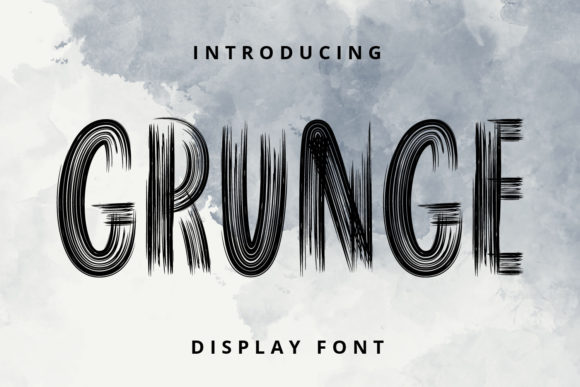
Grunge Font: The Ultimate Choice for Street Art and Urban Creations
Are you a designer or crafter looking for a font that embodies playfulness and authenticity? Look no further than Grunge Font! This fun, cool, and thick lettered display font is perfect for any street art design or urban creation. In this article, we’ll dive into the world of Grunge Font and explore its features, benefits, and uses.
What is Grunge Font?
Grunge Font is a display font that is characterized by its thick, bold letters and grungy texture. It’s a fun and playful font that is perfect for adding a touch of personality to your designs. The font is inspired by the grunge movement of the 1990s, which was known for its DIY ethos and anti-mainstream aesthetic.
Features of Grunge Font
Grunge Font has several features that make it a great choice for designers and crafters. Some of its key features include:
- Thick and bold letters: Grunge Font features thick and bold letters that are perfect for creating eye-catching designs.
- Grungy texture: The font has a grungy texture that gives it a rough and edgy look.
- Playful and authentic: Grunge Font embodies playfulness and authenticity, making it perfect for designs that require a touch of personality.
- Easy to read: Despite its grungy texture, Grunge Font is easy to read, even in large sizes.
Benefits of Using Grunge Font
There are several benefits to using Grunge Font in your designs. Some of the benefits include:
- Unique and eye-catching designs: Grunge Font allows you to create unique and eye-catching designs that stand out from the crowd.
- Perfect for street art and urban creations: The font is perfect for street art and urban creations, such as posters, flyers, and graffiti.
- Versatile: The font can be used for a variety of design projects, from logos and branding to posters and flyers.
Uses of Grunge Font
Grunge Font can be used for a variety of design projects, including:
- Street art and urban creations: The font is perfect for creating street art and urban creations, such as posters, flyers, and graffiti.
- Logos and branding: Grunge Font can be used to create unique and eye-catching logos and branding materials.
- Posters and flyers: The font is perfect for creating posters and flyers that require a bold and eye-catching design.
- Social media graphics: Grunge Font can be used to create social media graphics that stand out from the crowd.
Tips for Using Grunge Font
Here are some tips for using Grunge Font in your designs:
- Use it sparingly: Grunge Font is a bold font, so use it sparingly to avoid overwhelming your design.
- Pair it with other fonts: The font pairs well with other fonts, such as sans-serif fonts and script fonts.
- Experiment with colors: Grunge Font looks great in a variety of colors, so experiment with different colors to find the one that works best for your design.
Grunge Font is a fun, cool, and thick lettered display font that is perfect for any street art design or urban creation. Its unique features, such as its grungy texture and bold letters, make it a great choice for designers and crafters looking to add a touch of personality to their designs. With its ease of use and versatility, Grunge Font is a great addition to any designer’s toolkit.